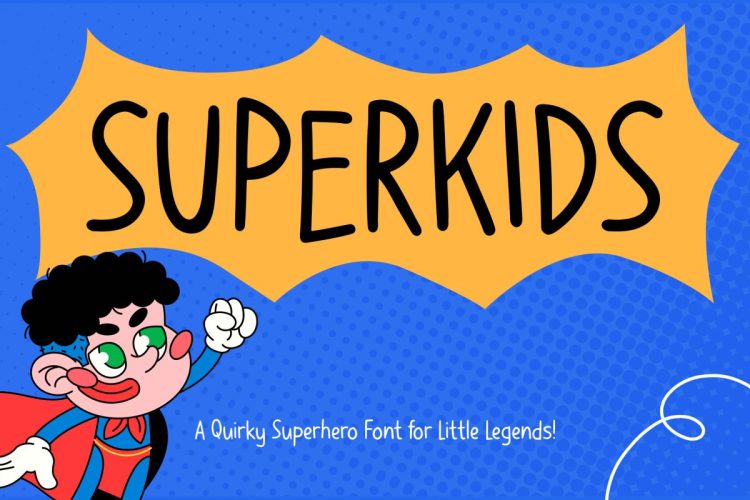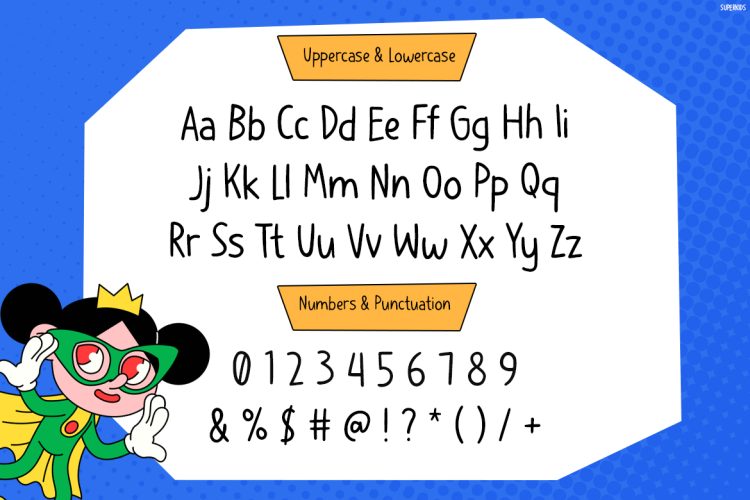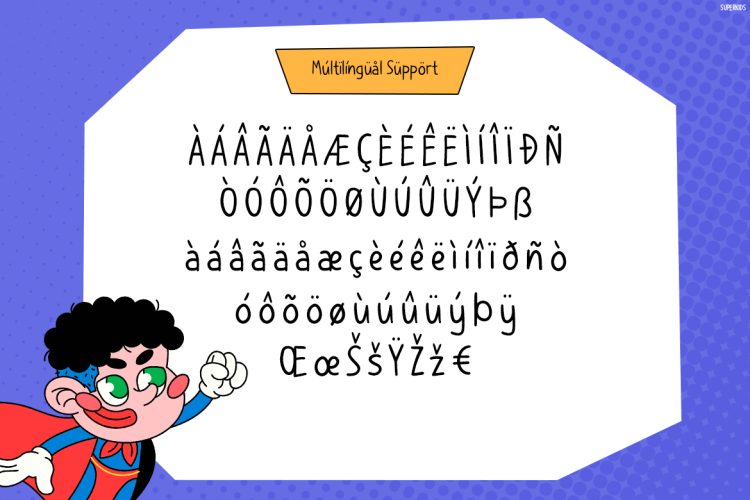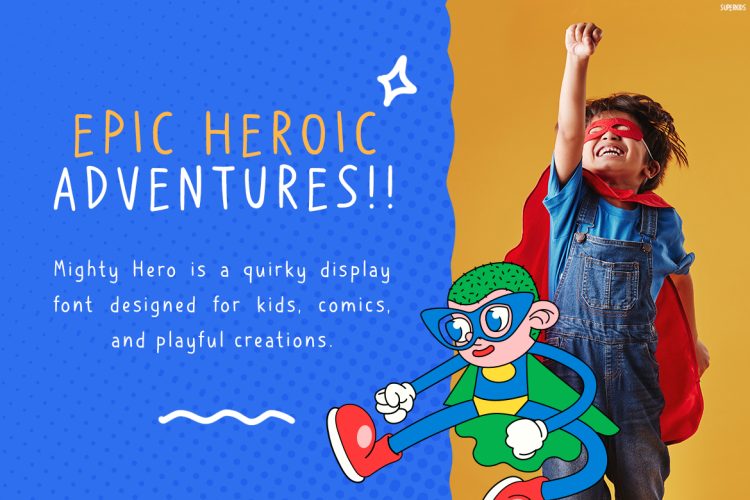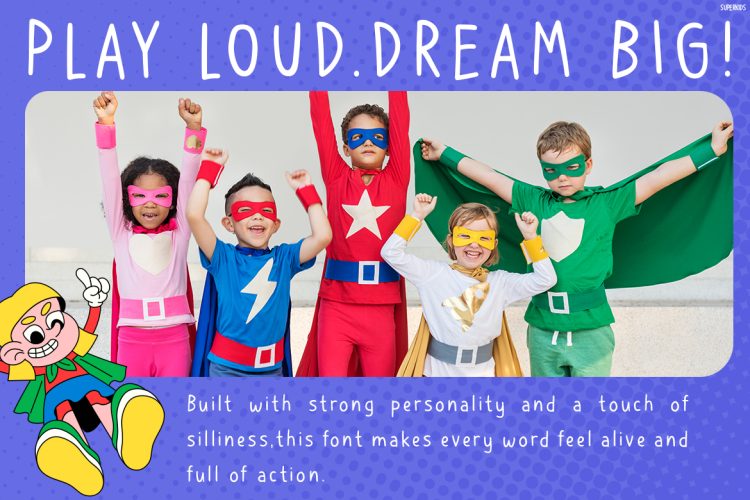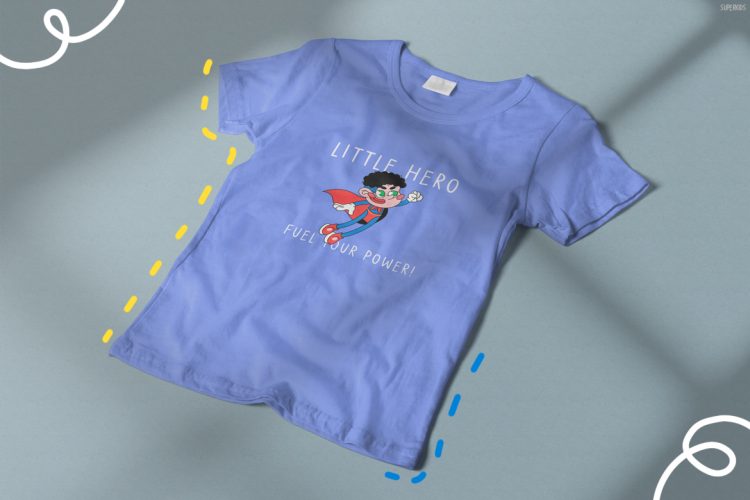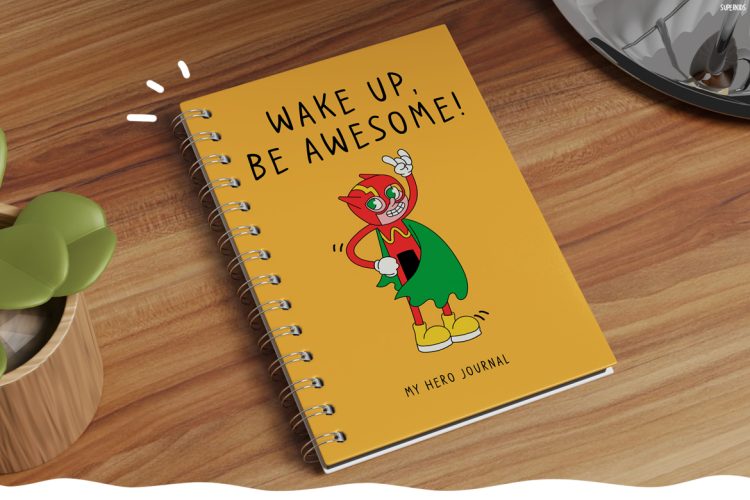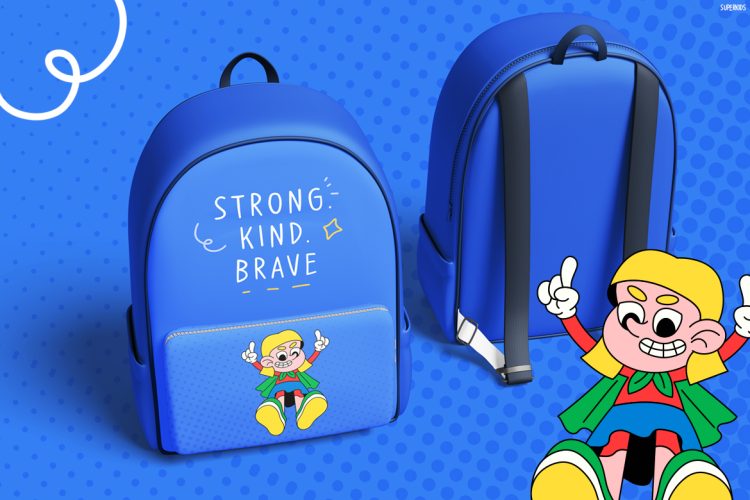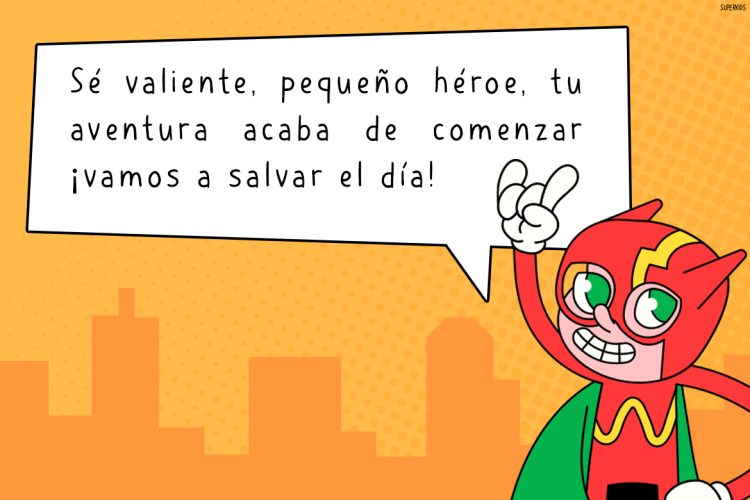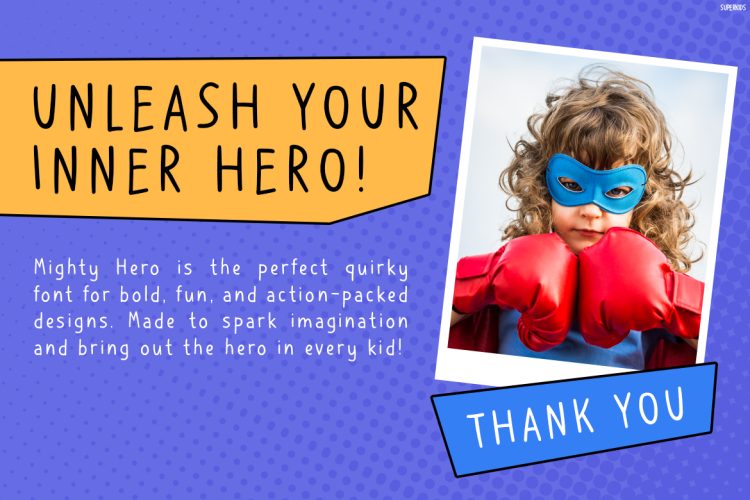
Superkids – Fun Hero Kids Font for Playful Designs & Creative Adventures
Kids Font Superkids is a cheerful and energetic display font made to bring fun, imagination, and heroic vibes into every design. Inspired by comic books, playful doodles, cartoon adventures, and childrenโs creativity, this font instantly creates a lively atmosphere. Moreover, its hand-drawn style, tall letterforms, and playful curves make every word feel expressive and full of personality. At the same time, the clean structure keeps the font readable and versatile. As a result, Superkids works beautifully for both print and digital projects. In addition, the font delivers a friendly and authentic look that captures the joyful spirit of childhood. Even better, Kids Font Superkids supports 67 languages, allowing creators to design for wider global audiences with ease.
Kids Font Superkids combines playful energy with strong readability. Not only does the handcrafted letter style create a natural and fun appearance, but it also adds warmth and creativity to every layout. Furthermore, the comic-inspired aesthetic gives designs a bold adventurous feel. Because of its energetic personality, this font helps visuals look more exciting and memorable. Meanwhile, the playful details make branding feel more approachable and fun. Therefore, Superkids becomes an excellent choice for creators who want cheerful typography with strong visual impact.
Kids Font Superkids Perfect For
- Kids & Educational Projects
Perfect for childrenโs books, school materials, learning games, classroom posters, and educational branding. In particular, the playful style helps make learning visuals more engaging and enjoyable for kids.
- Creative Brands & Merchandise
Great for toy packaging, kids apparel, birthday invitations, stickers, T-shirts, backpacks, and playful branding projects. Additionally, the energetic character style helps products feel more lively and lovable.
- Designers & Content Creators
Ideal for comic titles, YouTube thumbnails, social media graphics, posters, cartoons, party decorations, and creative typography projects. Moreover, the font helps every design feel expressive, colorful, and adventurous.
Bring More Fun Into Every Design
Kids Font Superkids is more than just a playful typeface. Instead, it is a creative tool that helps your designs feel joyful, energetic, and unforgettable. Whether you are creating kids branding, educational content, or comic-inspired artwork, this font delivers strong personality in every letter. Most importantly, Superkids helps your projects stand out with a charming and adventurous style. So, add this exciting kids font to your collection today and turn every idea into a fun visual masterpiece.